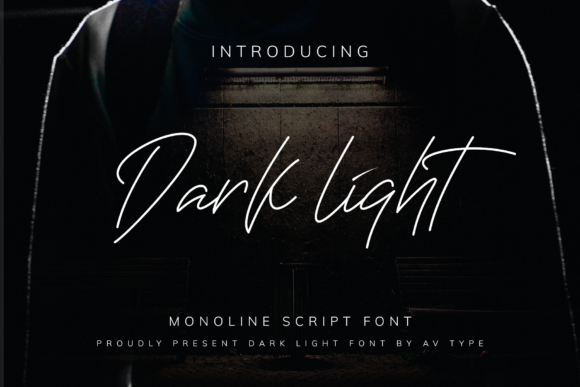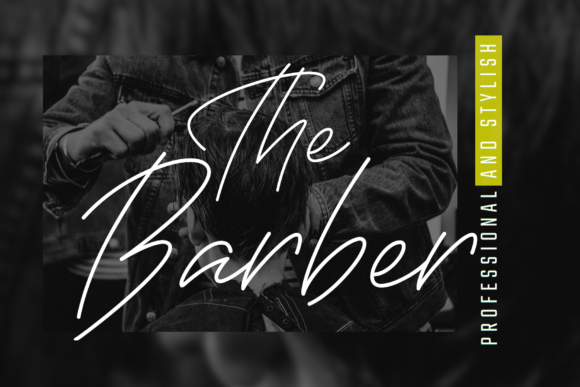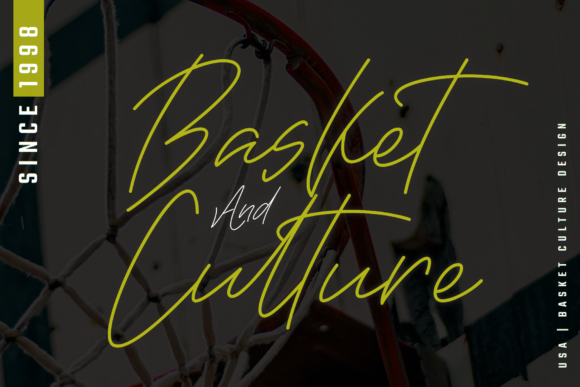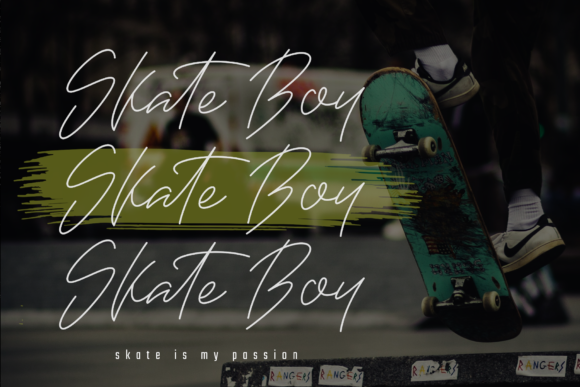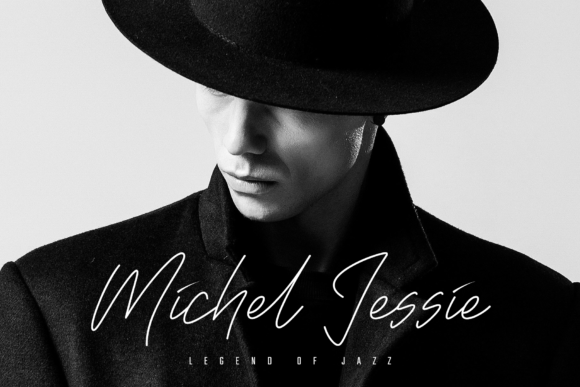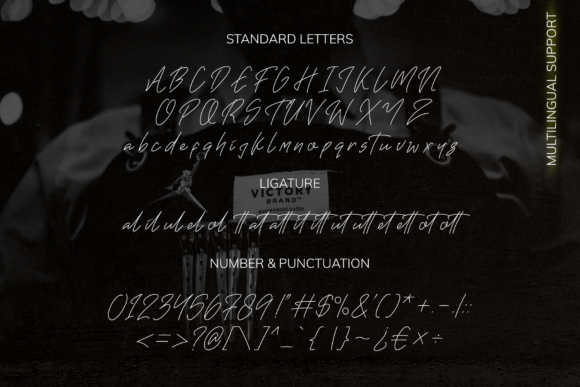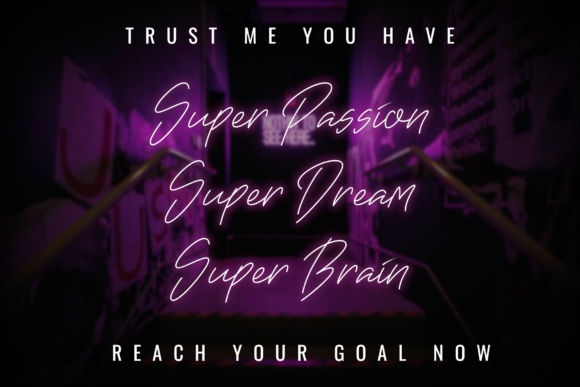
Darklight Font
About Darklight Font
Darklight is a cute and casual signature font with an incredibly friendly feel. It looks incredibly endearing and authentic. Whether you’re looking for fonts for Instagram or calligraphy scripts for DIY projects, Darklight will turn any creative idea into a true piece of art!